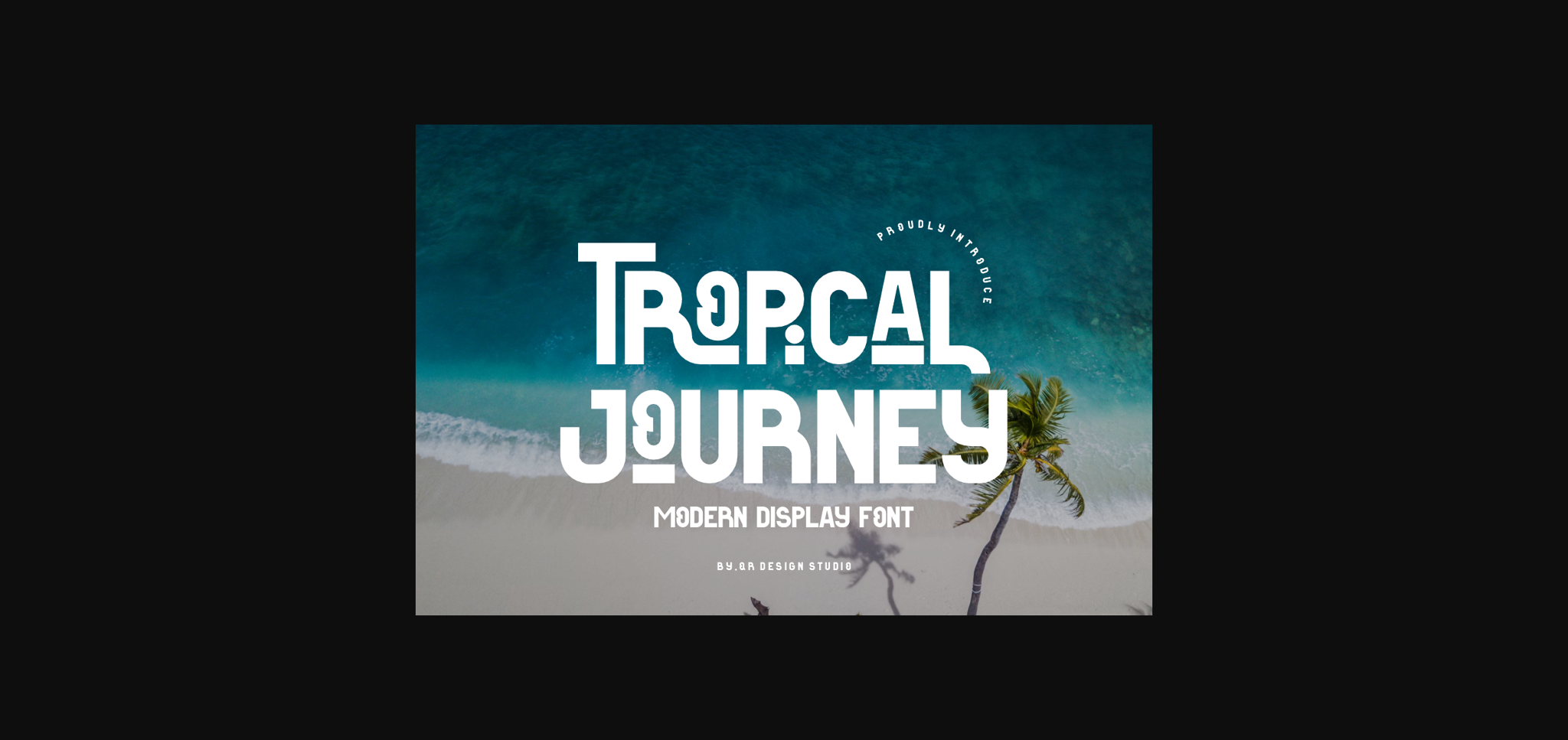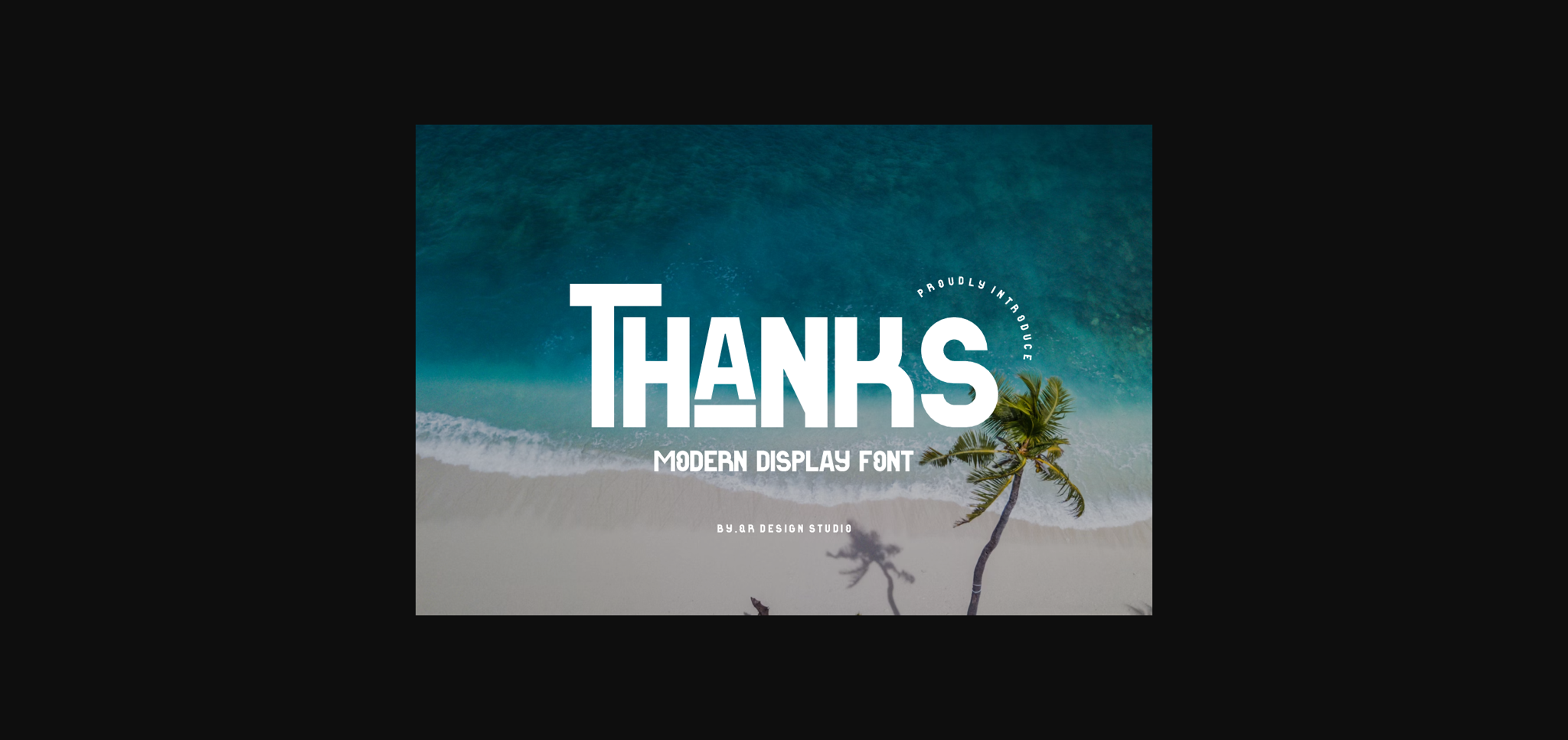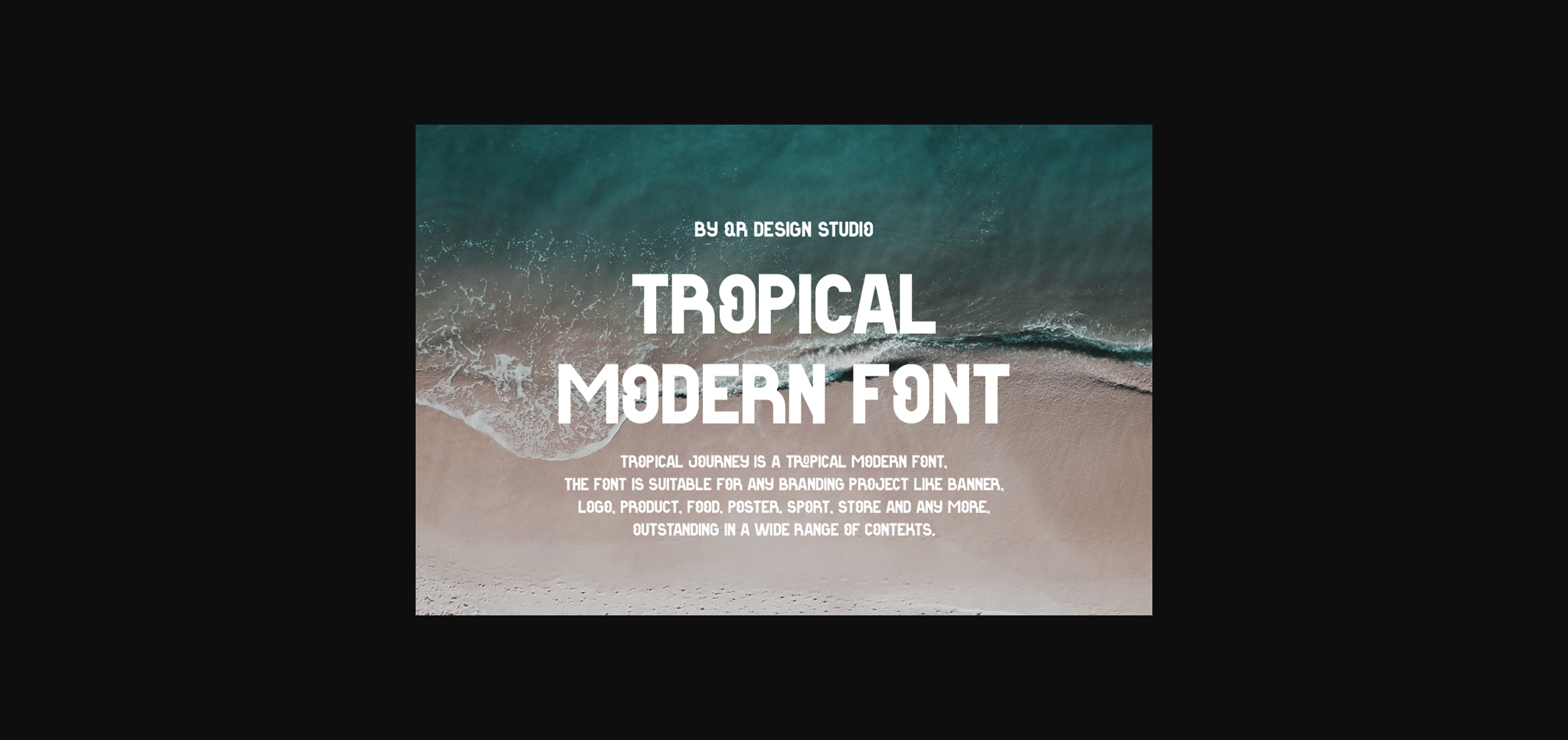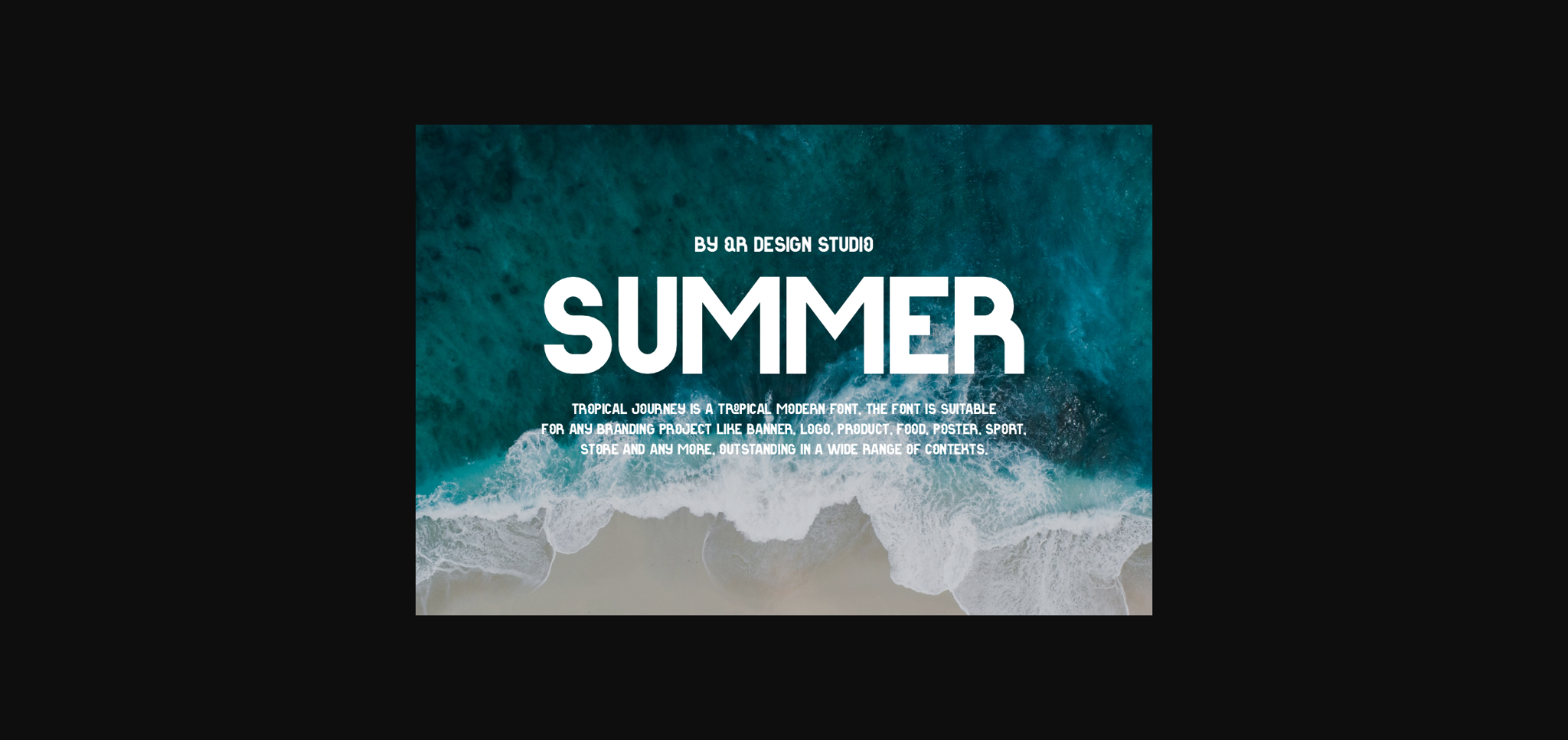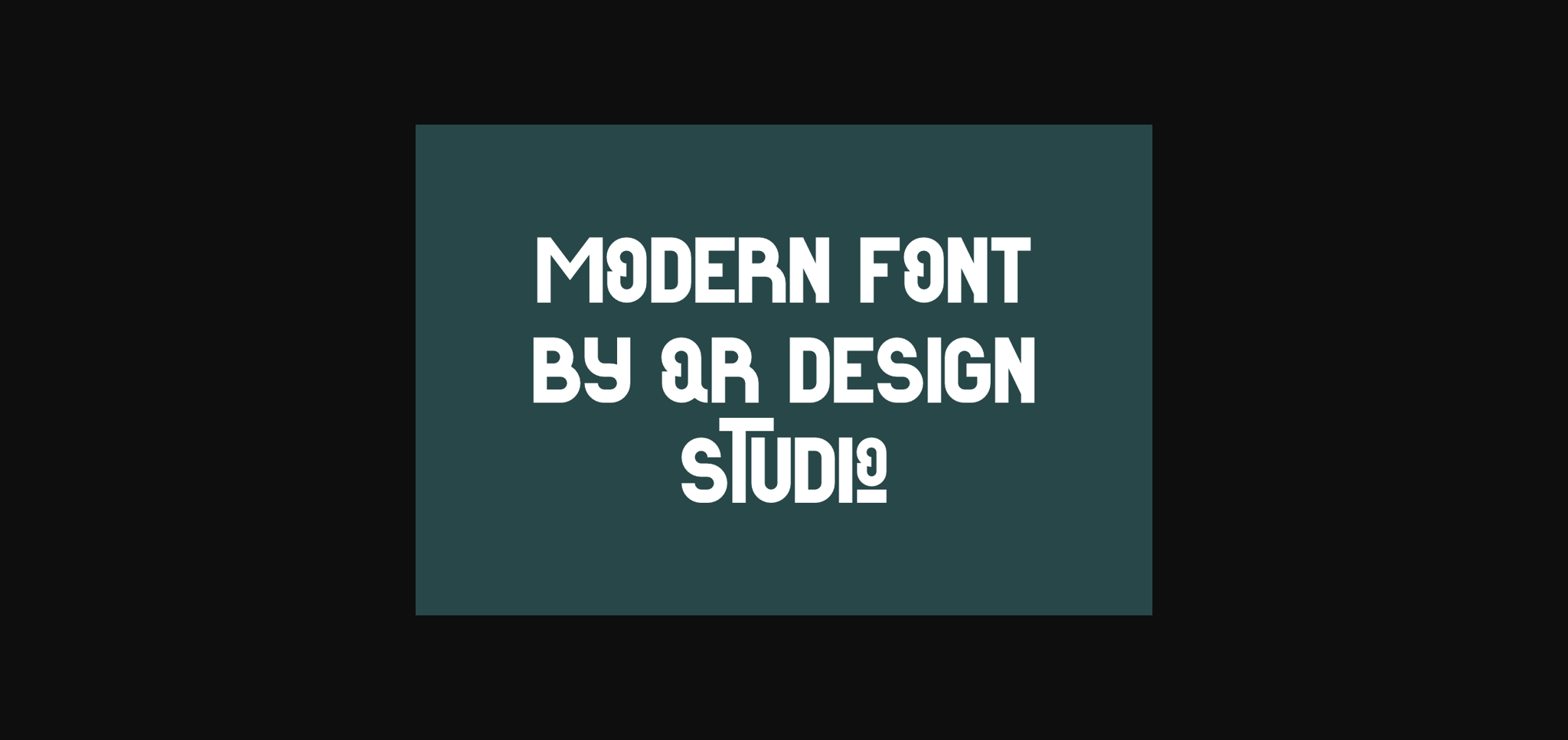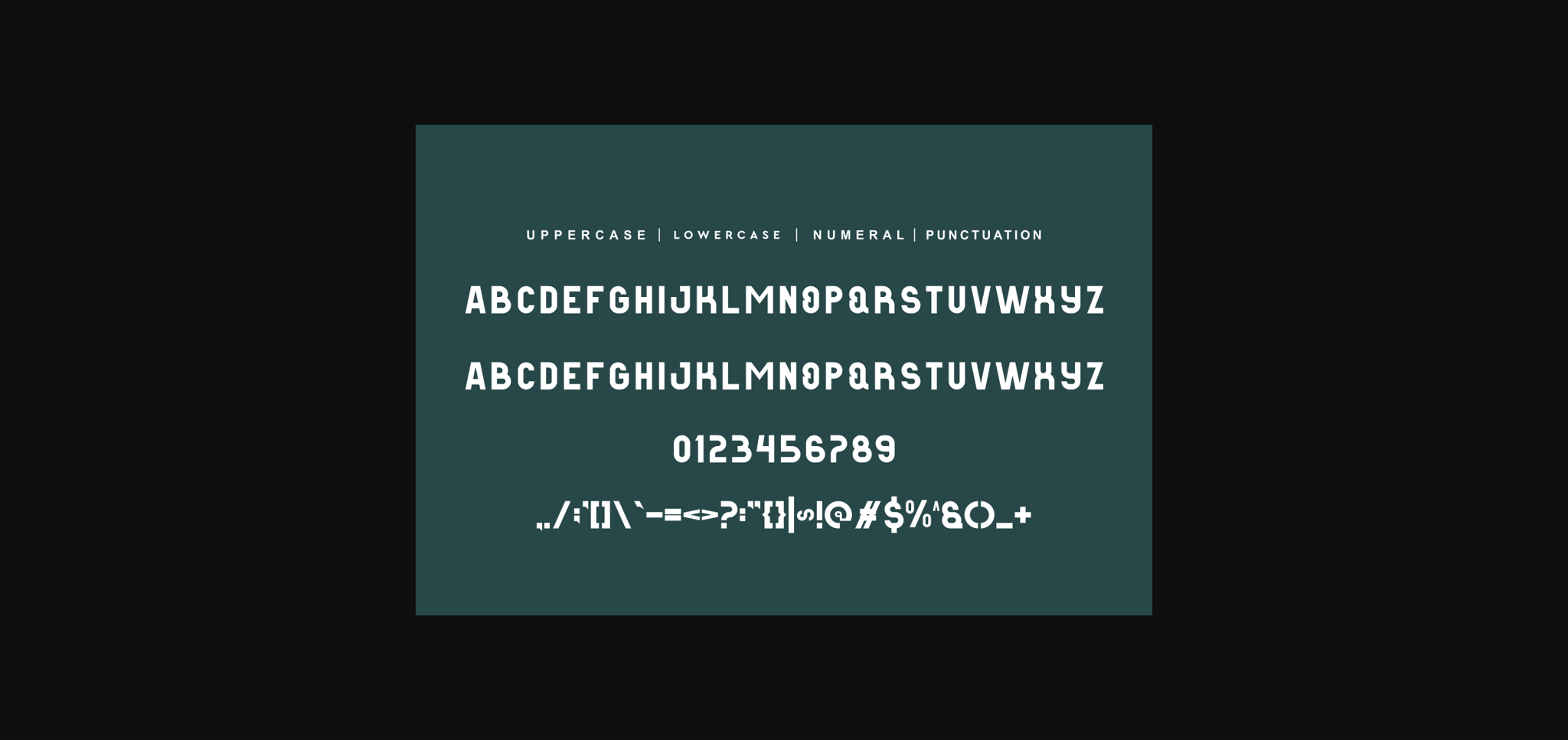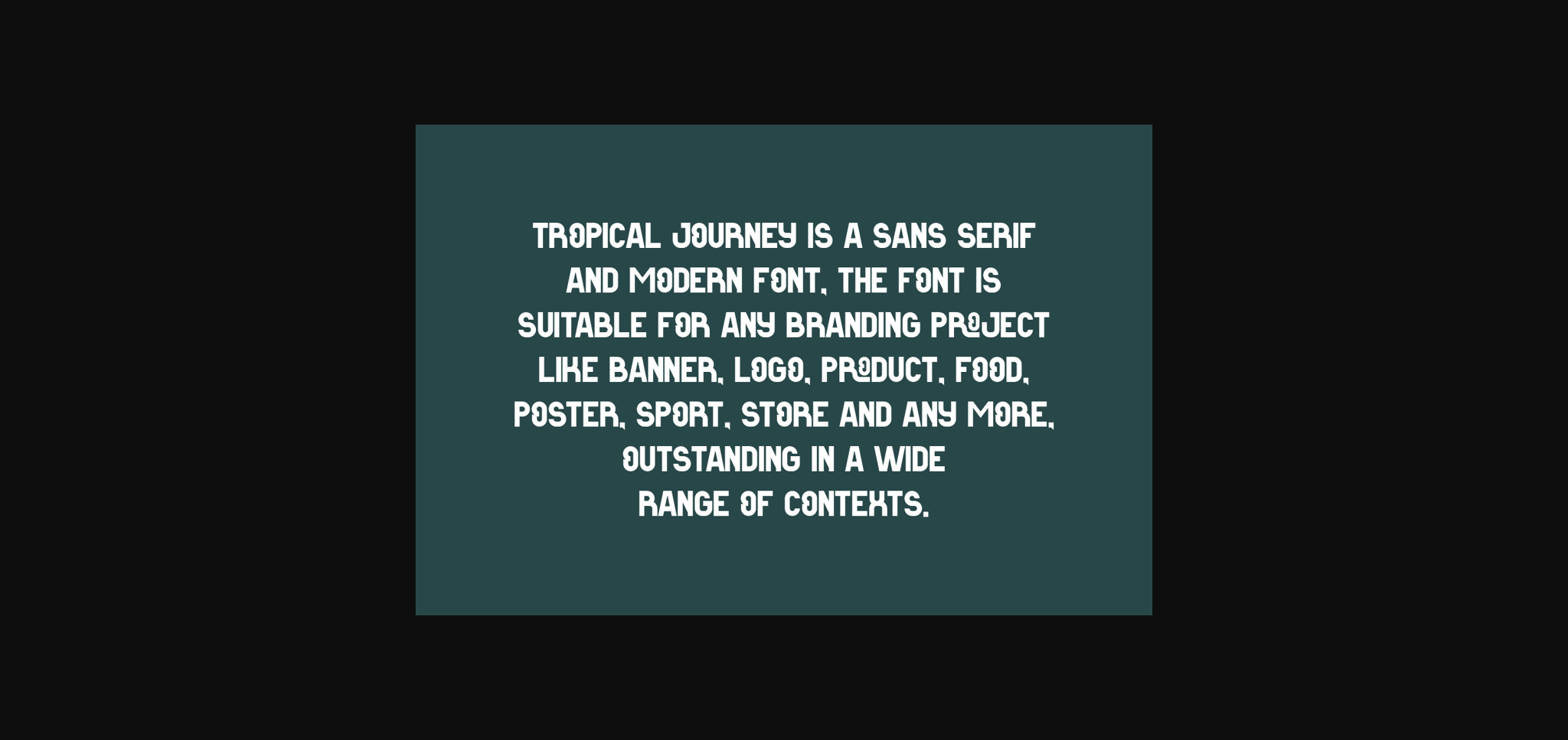
Tropical Journey Font
About Tropical Journey Font
Tropical Journey is an incredibly unique sans serif font. Masterfully designed to become a true favorite, this font has the potential to bring each of your creative ideas to the highest level!